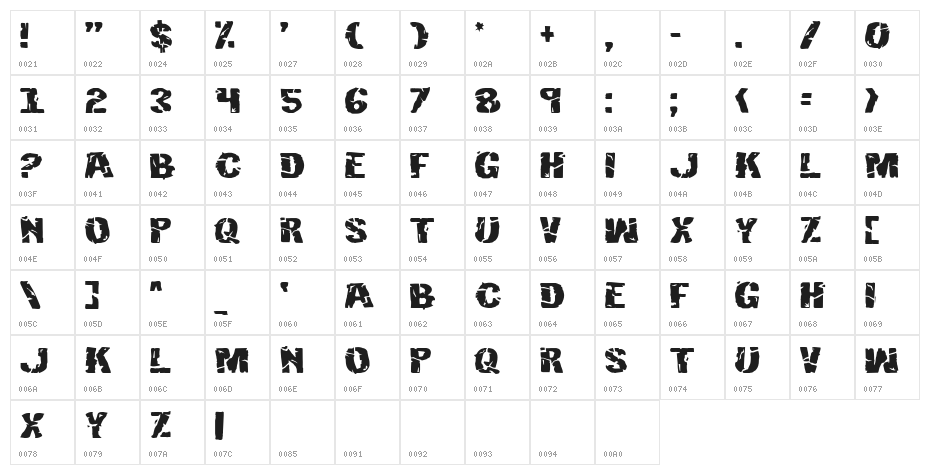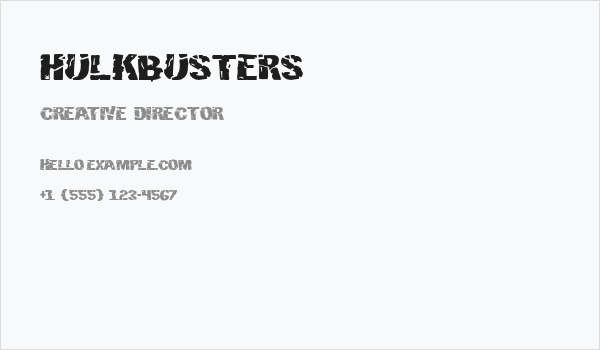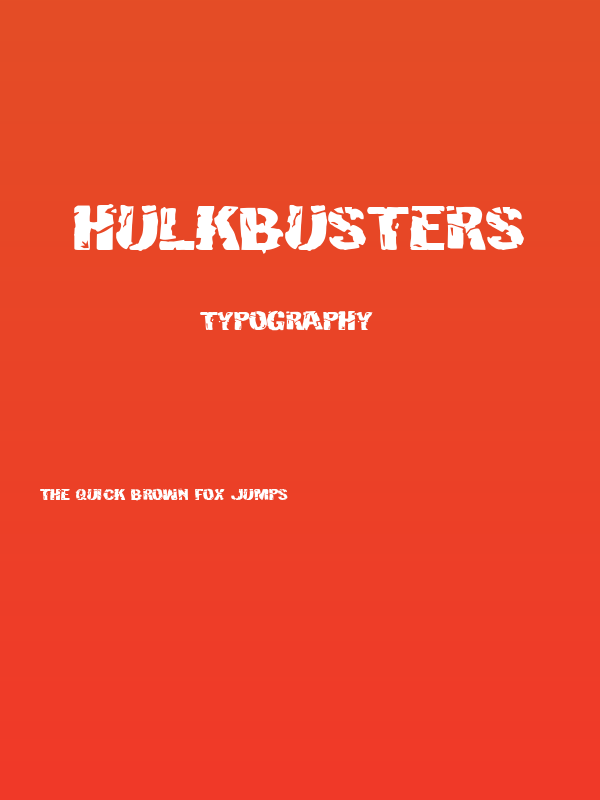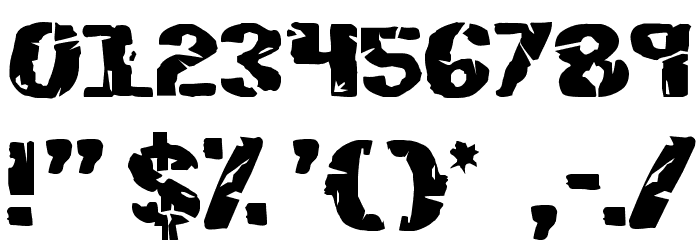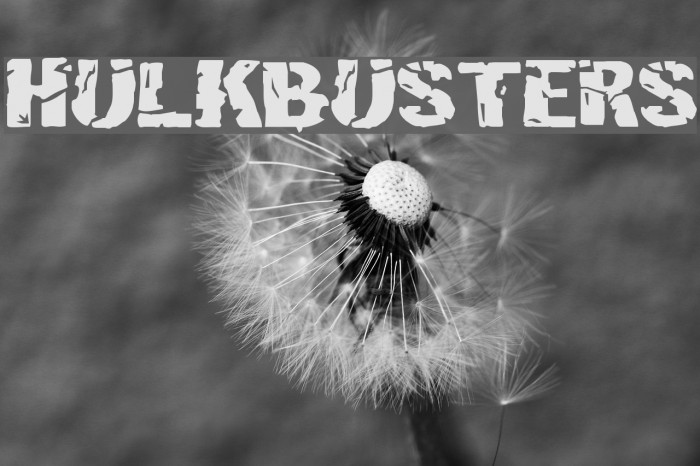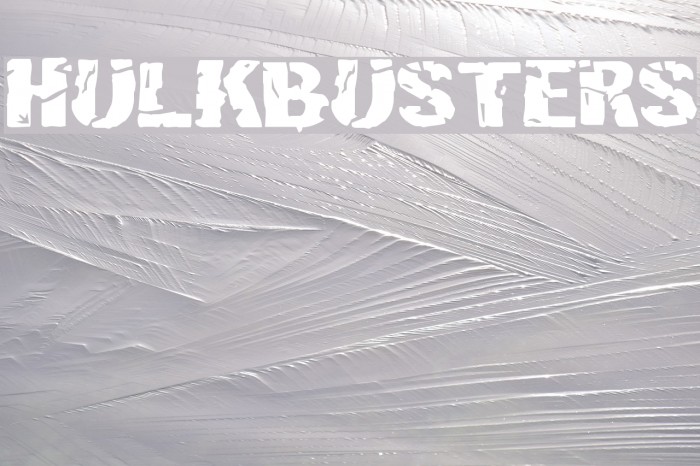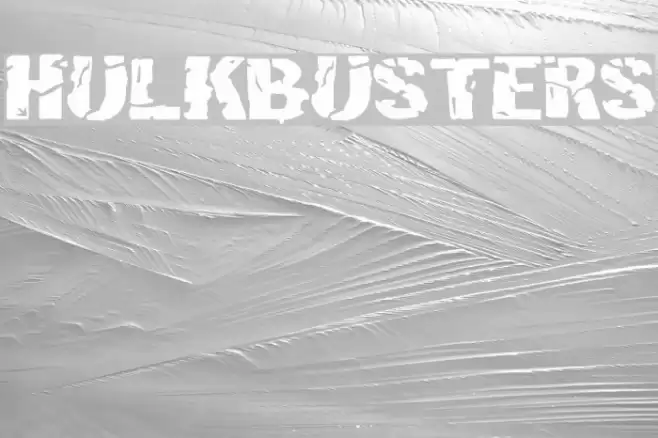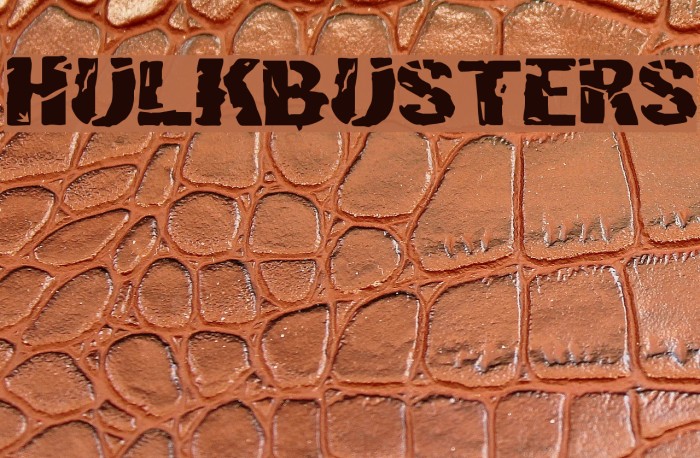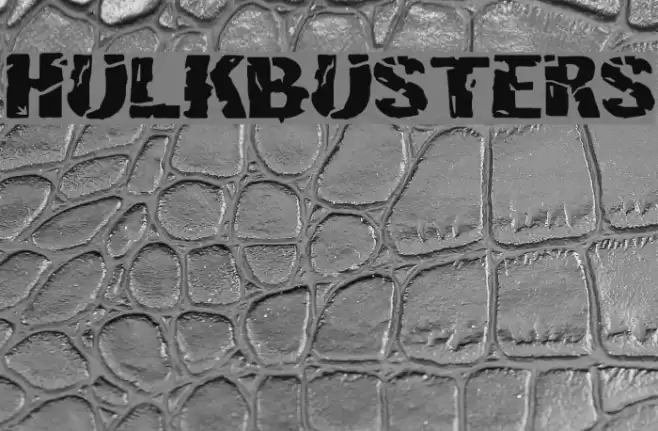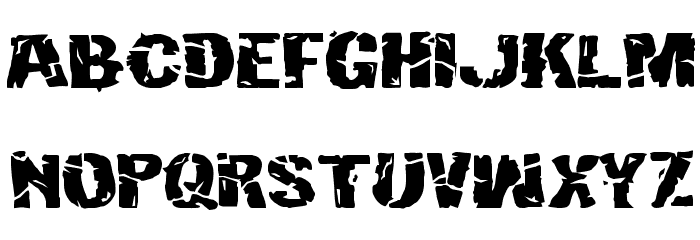
Hulkbusters Font
✎ Distorted Eroded
Hulkbusters Description
This font features a bold and rugged design, characterized by its distressed and fragmented appearance. Each letter appears as if it has been chipped away or eroded, giving it a gritty and industrial feel. The uppercase and lowercase letters maintain a consistent style, with thick strokes and uneven edges that create a sense of movement and energy. The numbers and special characters follow the same design principles, ensuring a cohesive look across all elements. This font's unique style makes it stand out, perfect for projects that require a strong and impactful visual presence.
| Proposed Projects | Ideal for movie posters, video game covers, urban-themed designs, and branding for extreme sports. |